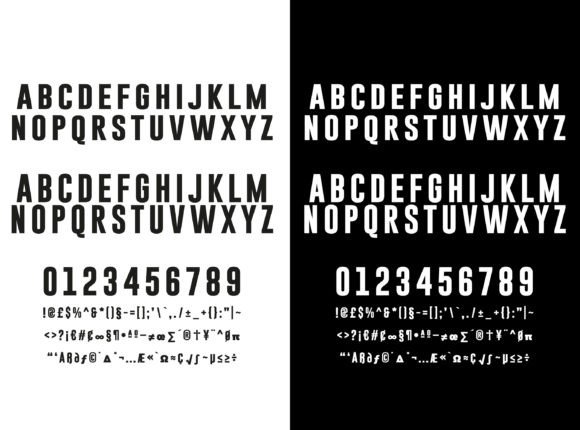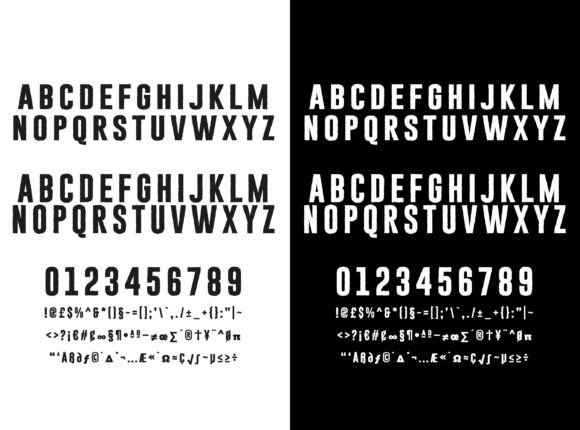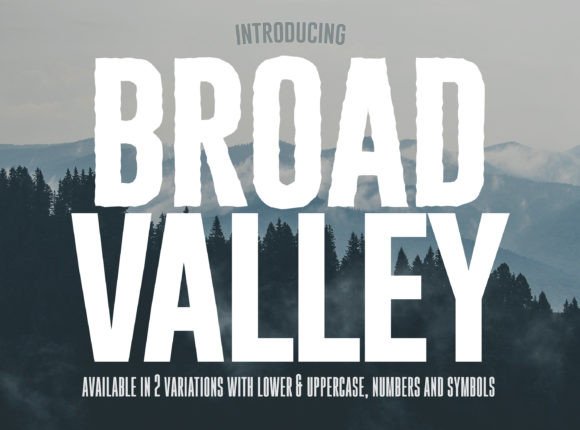
The Bold Statement Maker: Broad Valley Font
Have you ever been in the middle of a design project, pouring your heart and soul into it, only to hit a roadblock when it comes to choosing the perfect font? I certainly have. It was during one of those moments, working on a bold and edgy branding project, that I stumbled upon the Broad Valley font. This extra-bold display font has been a game-changer for me, and I’m excited to share my experience with you.
A Personal Design Moment: When Fonts Make All the Difference
I recall working on a project for a client who wanted a logo that exuded confidence and strength. I tried out several fonts, but none seemed to capture the essence of what I was looking for. That was until I discovered Broad Valley. Its bold and iconic style instantly resonated with my vision, and I knew I had found the perfect fit. The font added a solid mood to my design, making it stand out in a crowded market.
What I Love About Broad Valley Font
• ✨ Extra-bold and eye-catching: Broad Valley font is perfect for making a statement with your titles and headlines.
• ✅ Versatile: It can be used in both retro and modern designs, making it a great addition to your font library.
• 💥 Big fat personality: This font is not for the faint of heart; it’s loud, bold, and demands attention.
• 🎨 Great for artistic creations: Broad Valley font brings style and weight to your designs, making them come alive.
While Broad Valley font is an excellent choice for many projects, there are a few things to keep in mind:
• 🤔 Legibility at small sizes: Due to its bold nature, Broad Valley font may not be the best choice for body text or small font sizes.
• ⚠️ Limited use in certain contexts: Its bold style may not be suitable for designs that require a more subtle approach.
4. Experiment with OpenType features, such as glyphs and stylistic alternates, to add more personality to your text.
4. Explore OpenType features, such as glyphs and stylistic alternates, to add more depth to your design.
The Designer Inspiration Behind Broad Valley Font
Broad Valley font was inspired by the classic bold fonts of the 80s and 90s. Its designer aimed to create a font that would make a statement, a font that would be impossible to ignore. With its bold and iconic style, Broad Valley font is perfect for designers who want to add a solid mood to their creations.
Q: What is Broad Valley font best used for?
A: Broad Valley font is best used for titles, headlines, and any design project that requires a bold and iconic style.
Q: Can I use Broad Valley font for body text?
A: While Broad Valley font can be used for body text, it’s not recommended due to its bold nature and potential legibility issues at small sizes.
Q: Is Broad Valley font suitable for digital and print designs?
A: Yes, Broad Valley font can be used for both digital and print designs, making it a versatile addition to your font library.